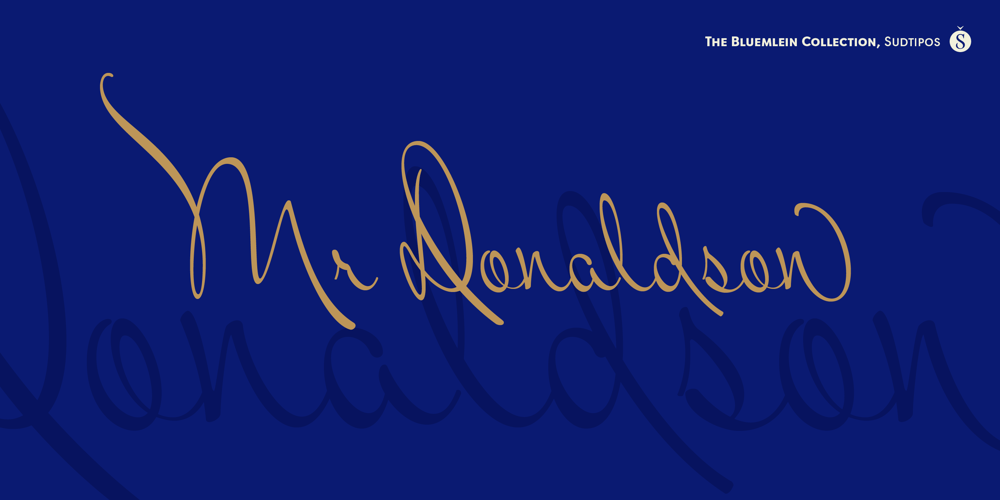
Mr Donaldson Pro Font Family was designed by Alejandro Paul, Charles P Bluemlein and published by Sudtipos. Mr Donaldson Pro contains 1 styles and family package options. The Charles Bluemlein Script Collection is an intriguing reminder of the heady days of hand lettering and calligraphy in the United States. From the early 1930s through World War II, there were about 200 professional hand letterers working in New York City alone. This occupation saw its demise with the advent of photo lettering, and after digital typography, became virtually extinct. The odd way in which the Bluemlein scripts were assembled and created – by collecting different signatures and then building complete alphabets from them – is a fascinating calligraphic adventure. Because the set of constructed designs looked nothing like the original signatures, fictitious names were assigned to the new script typefaces. The typeface styles were then showcased in Higgins Ink catalogs. Alejandro Paul and Sudtipos bring the Bluemlein scripts back to life in a set of expanded digital versions, reflecting the demands of today’s designer. Extreme care has been taken to render the original scripts authentically, keeping the fictitious names originally assigned to them by Bluemlein.